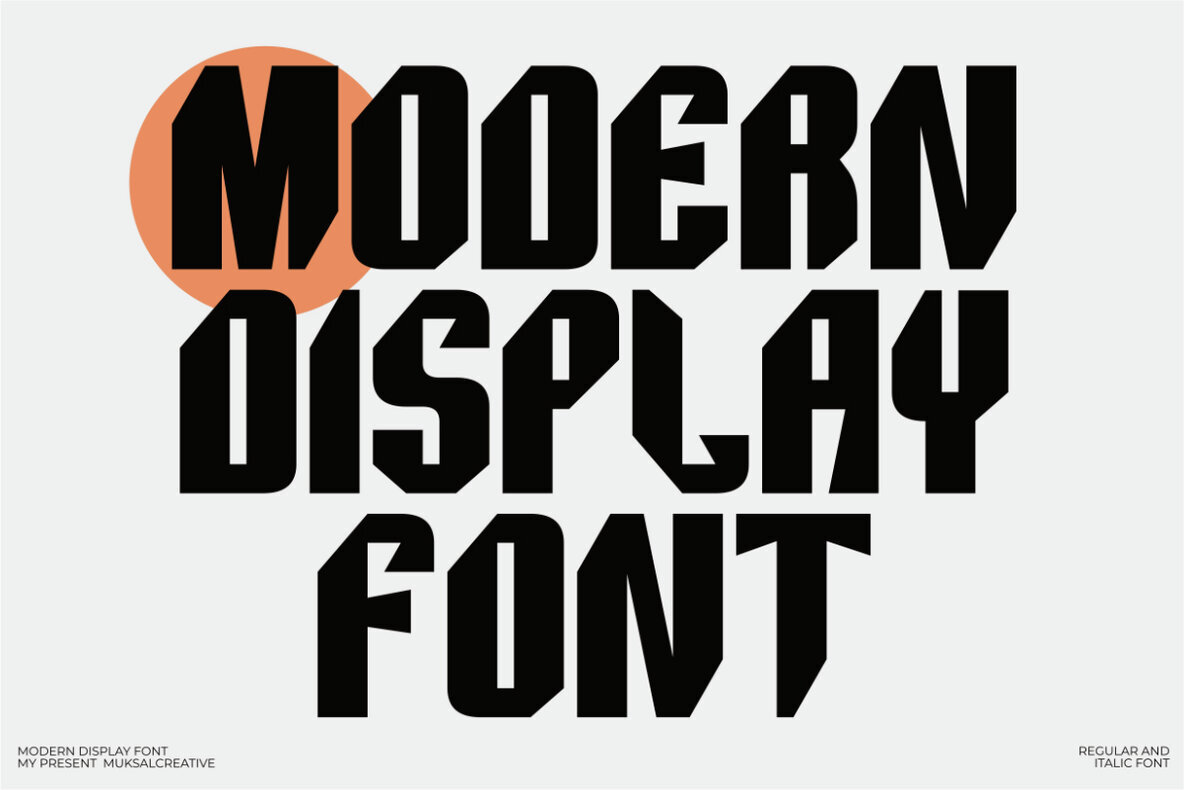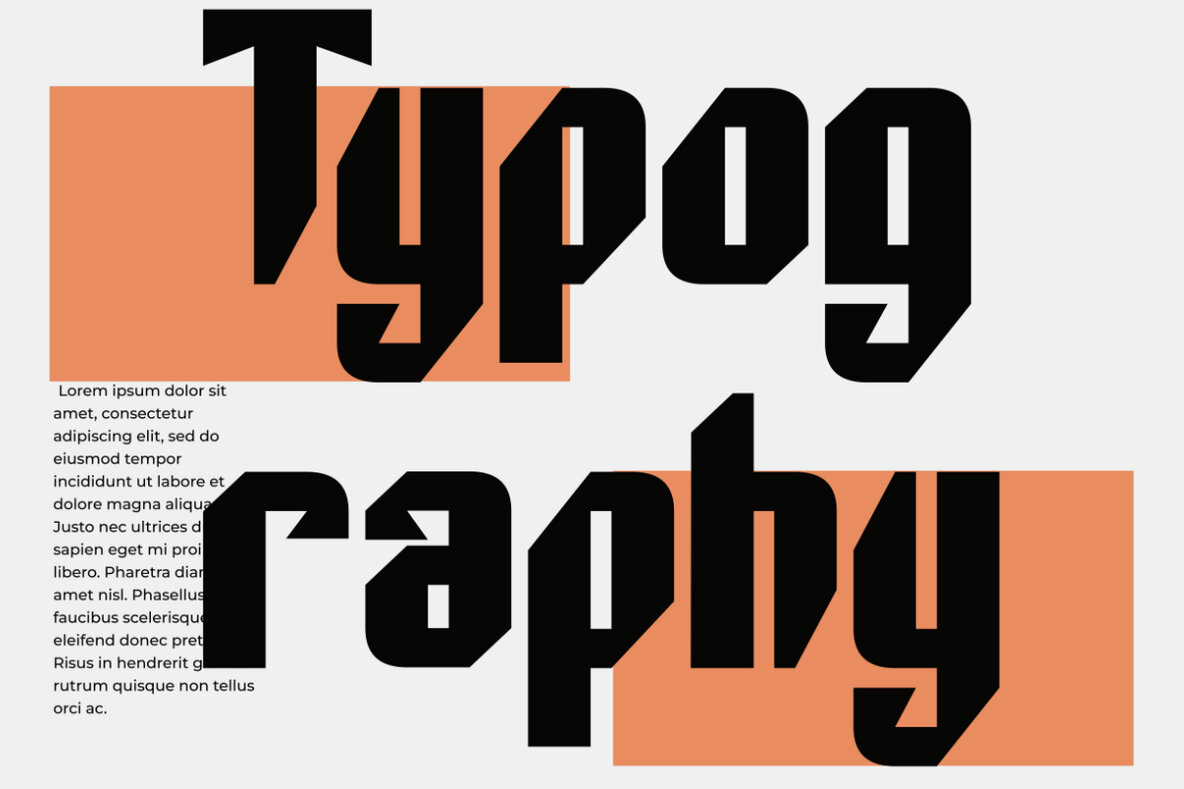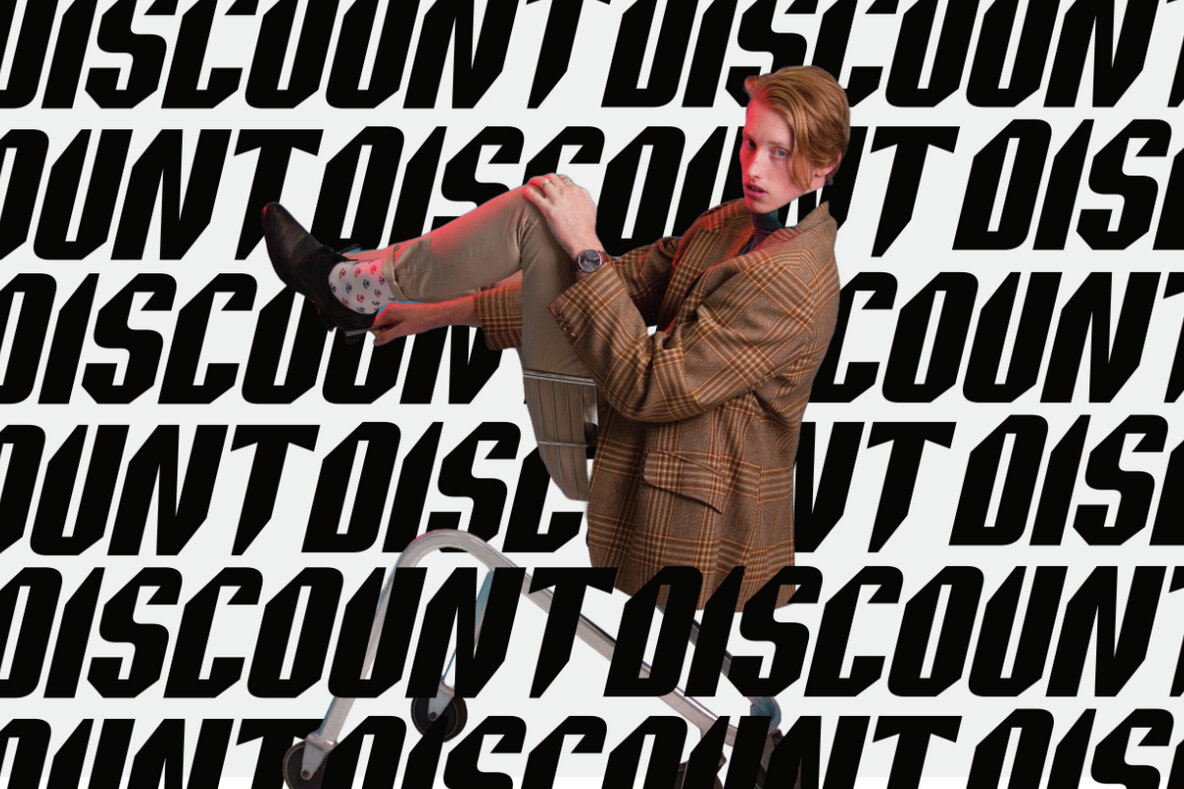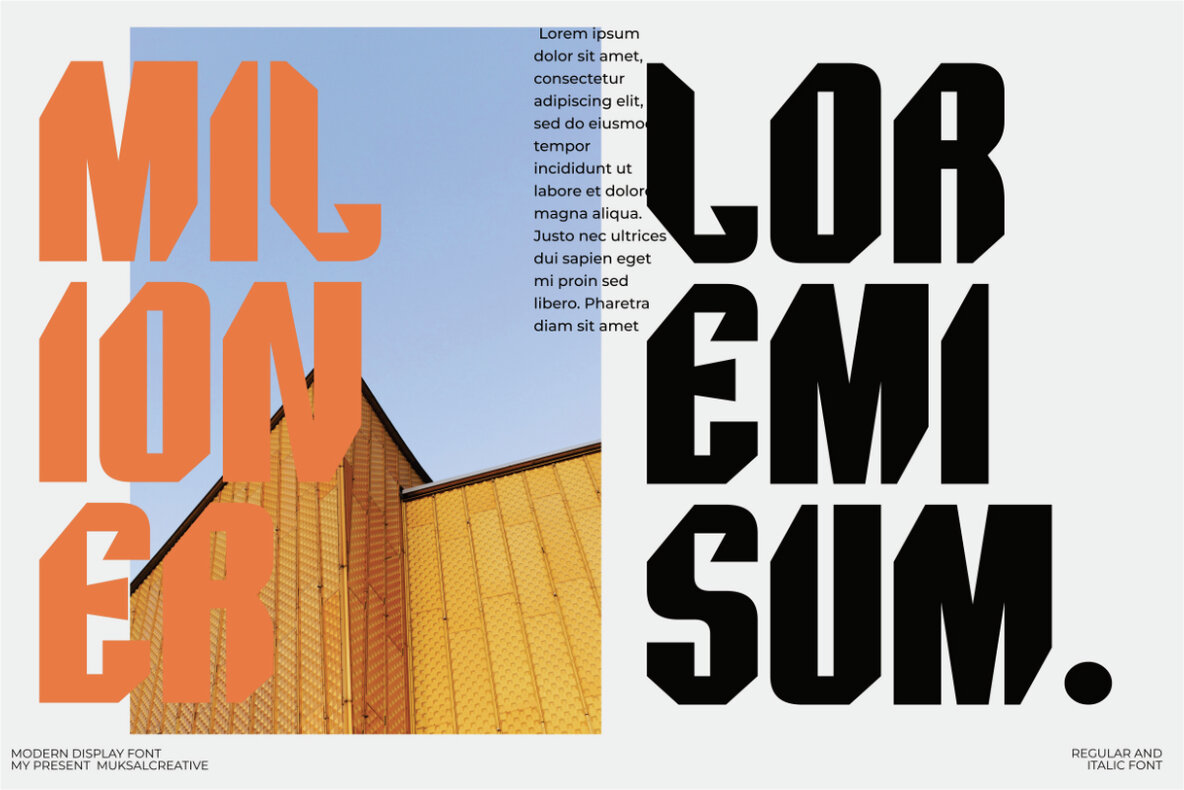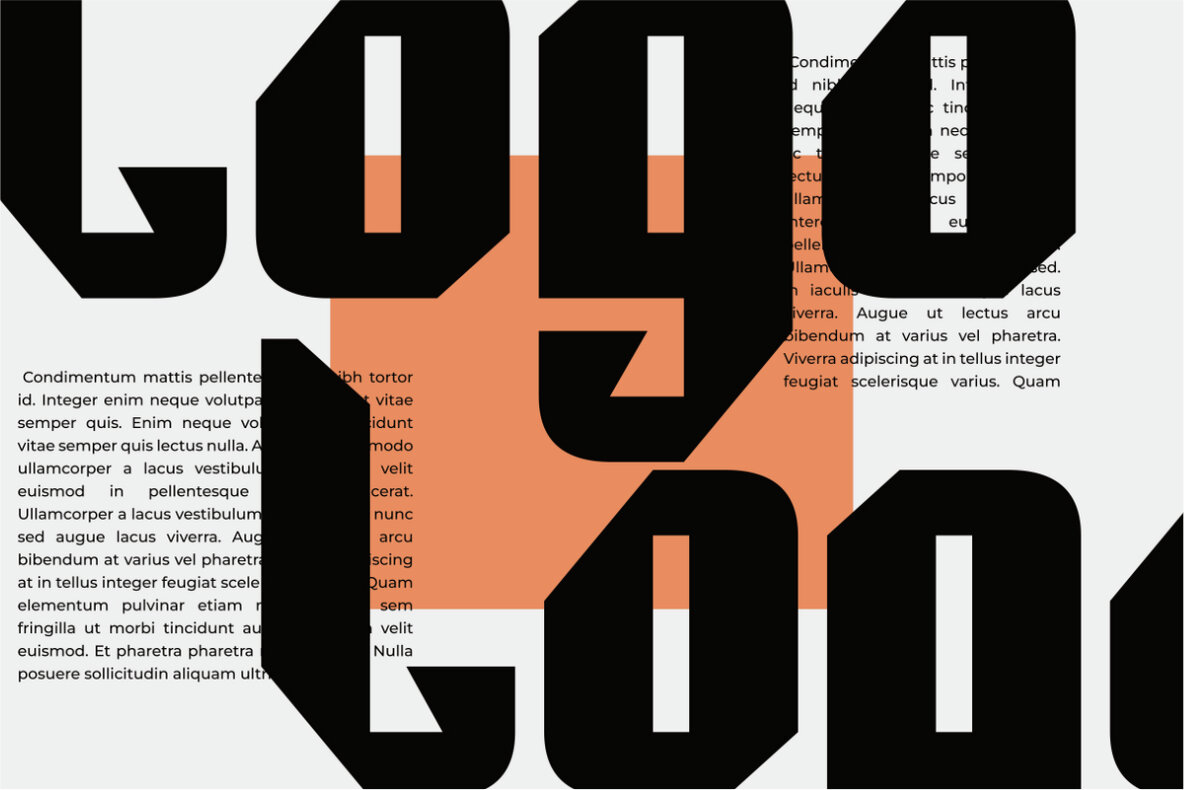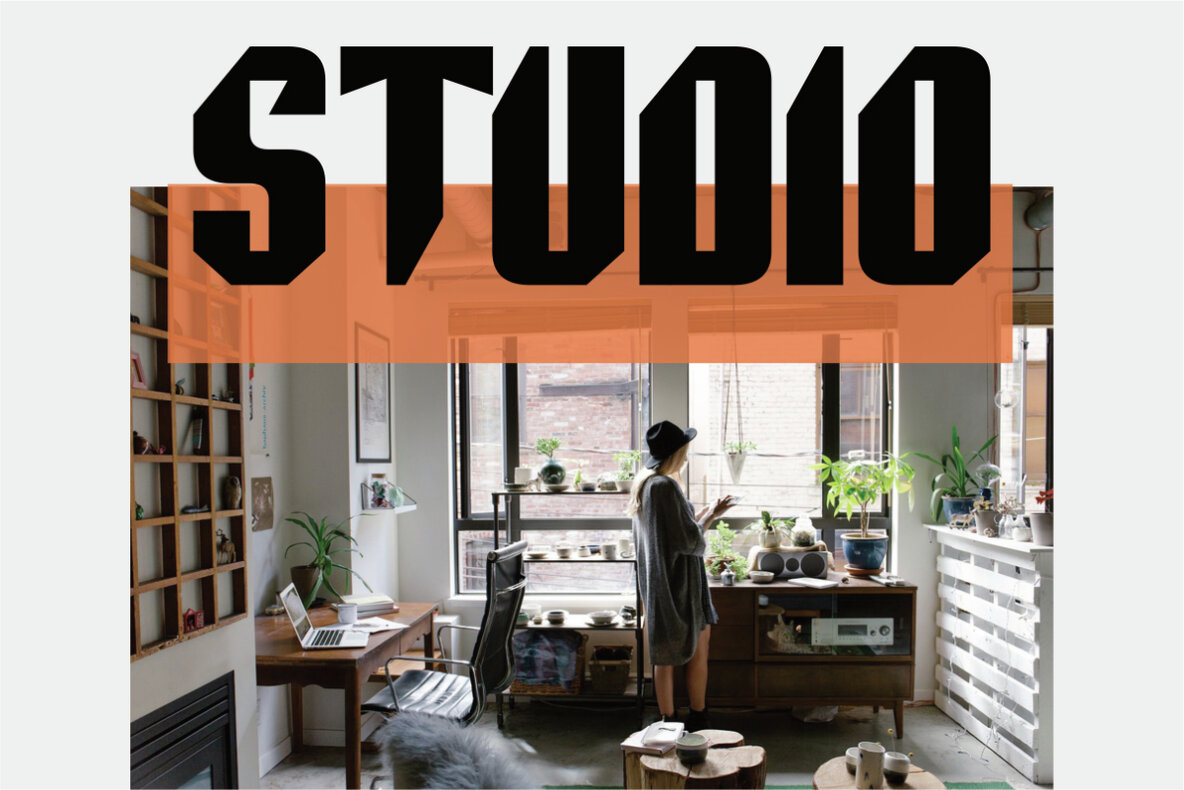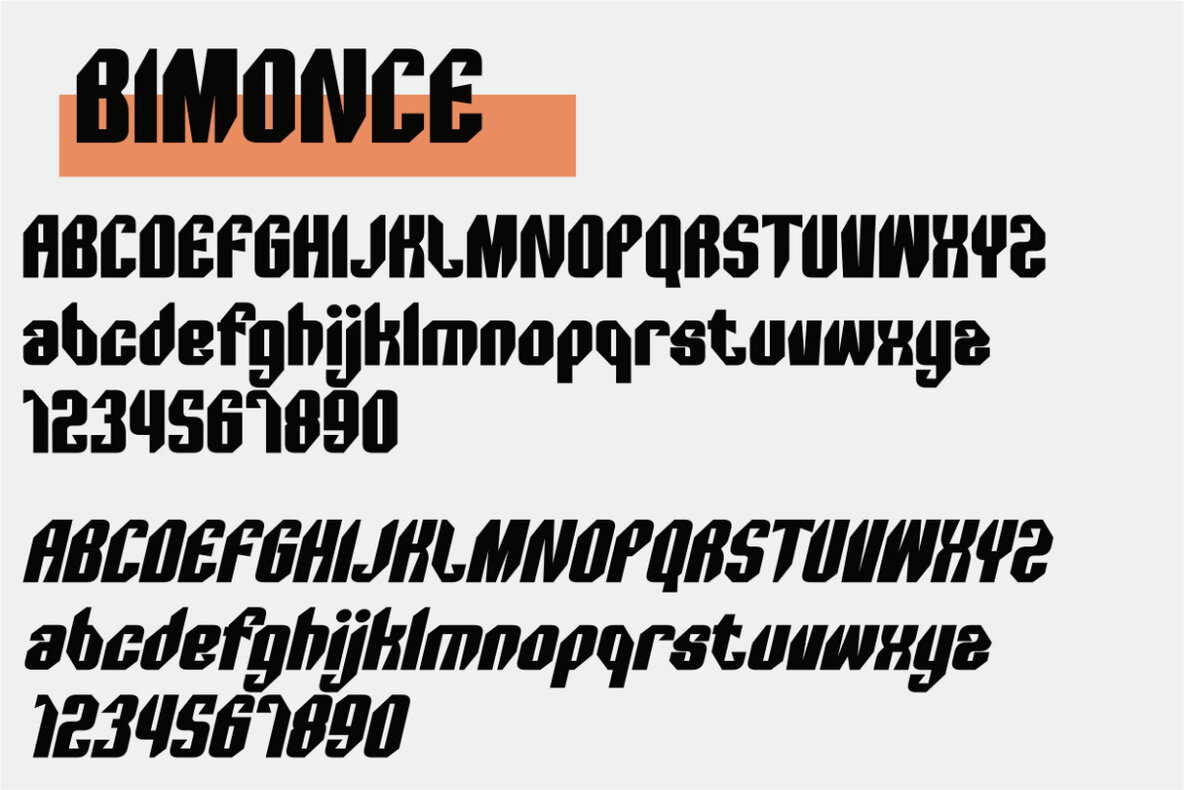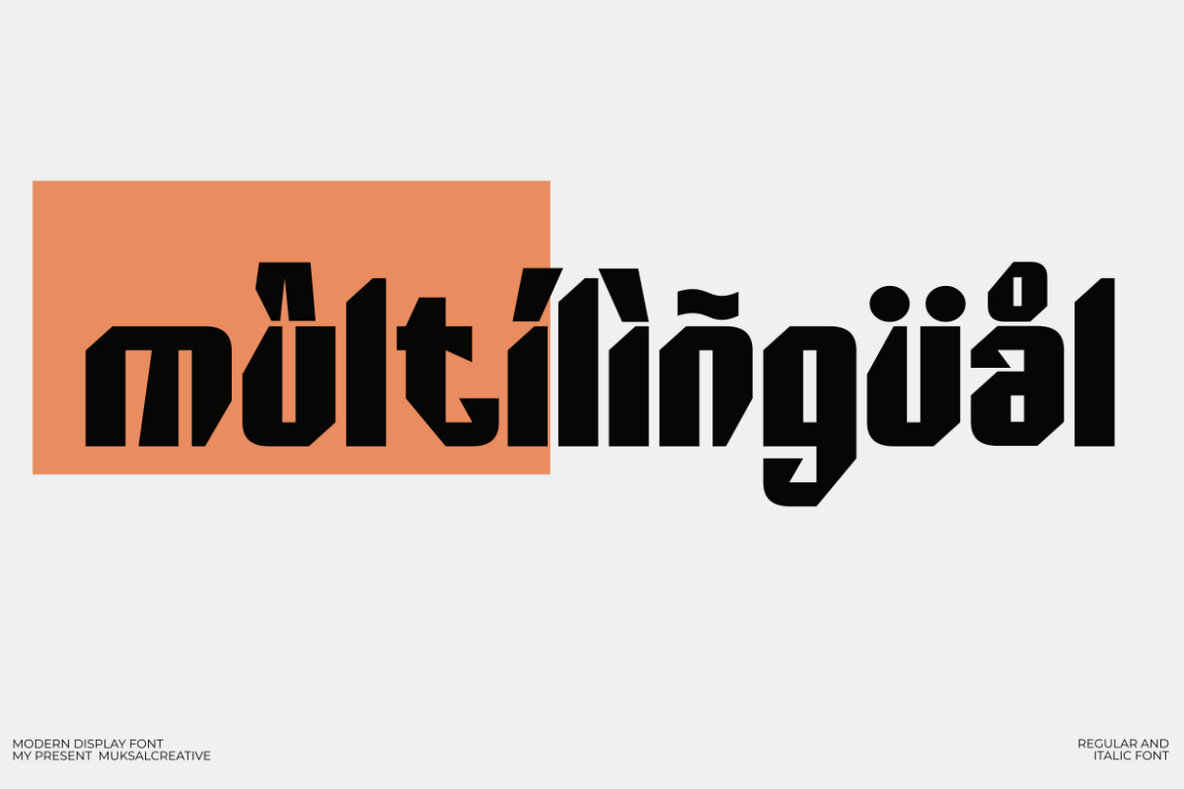
Bimounce Font
Bimounce is a modern display font that seamlessly blends contemporary style with versatile functionality. Designed to stand out in any project, Bimounce offers a sleek and sophisticated aesthetic, making it an excellent choice for all types of design work. Whether you're working on branding, posters, invitations, social media graphics, or web design, Bimounce provides the perfect balance of elegance and readability. Its clean lines and distinctive character ensure that your designs will capture attention and leave a lasting impression. With Bimounce, you have a powerful tool at your disposal to create compelling and visually striking designs for any occasion.